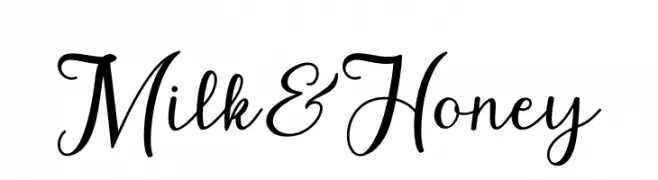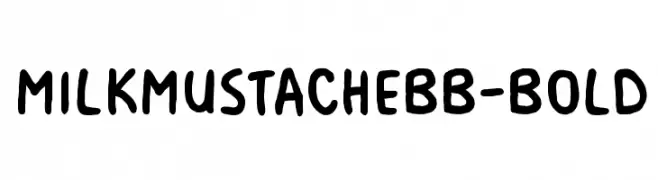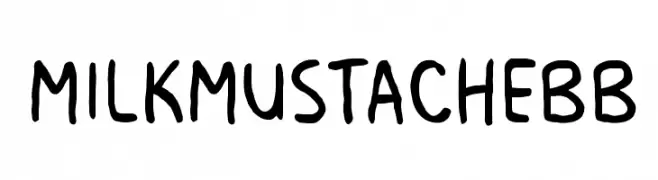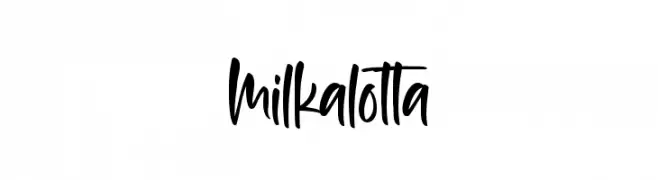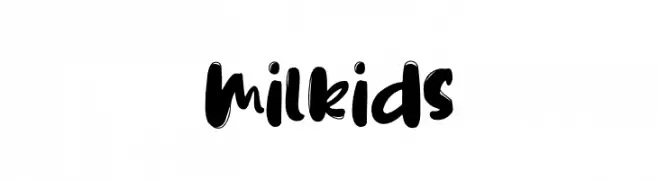
A charming and elegant script font with flowing, cursive letterforms.
A lively and energetic handwritten font with bold, fluid strokes.
A bold, playful handwritten font with rounded strokes and a lively appearance.
A bold, flowing script font with elegant curves and a calligraphic style.
A playful, handwritten font with rounded, consistent strokes and a whimsical style.
A bold, playful handwritten font with rounded edges and a whimsical style.
A playful, bold, and handwritten-style font with thick strokes and rounded edges.
A bold, playful handwritten font with a smooth, flowing style.